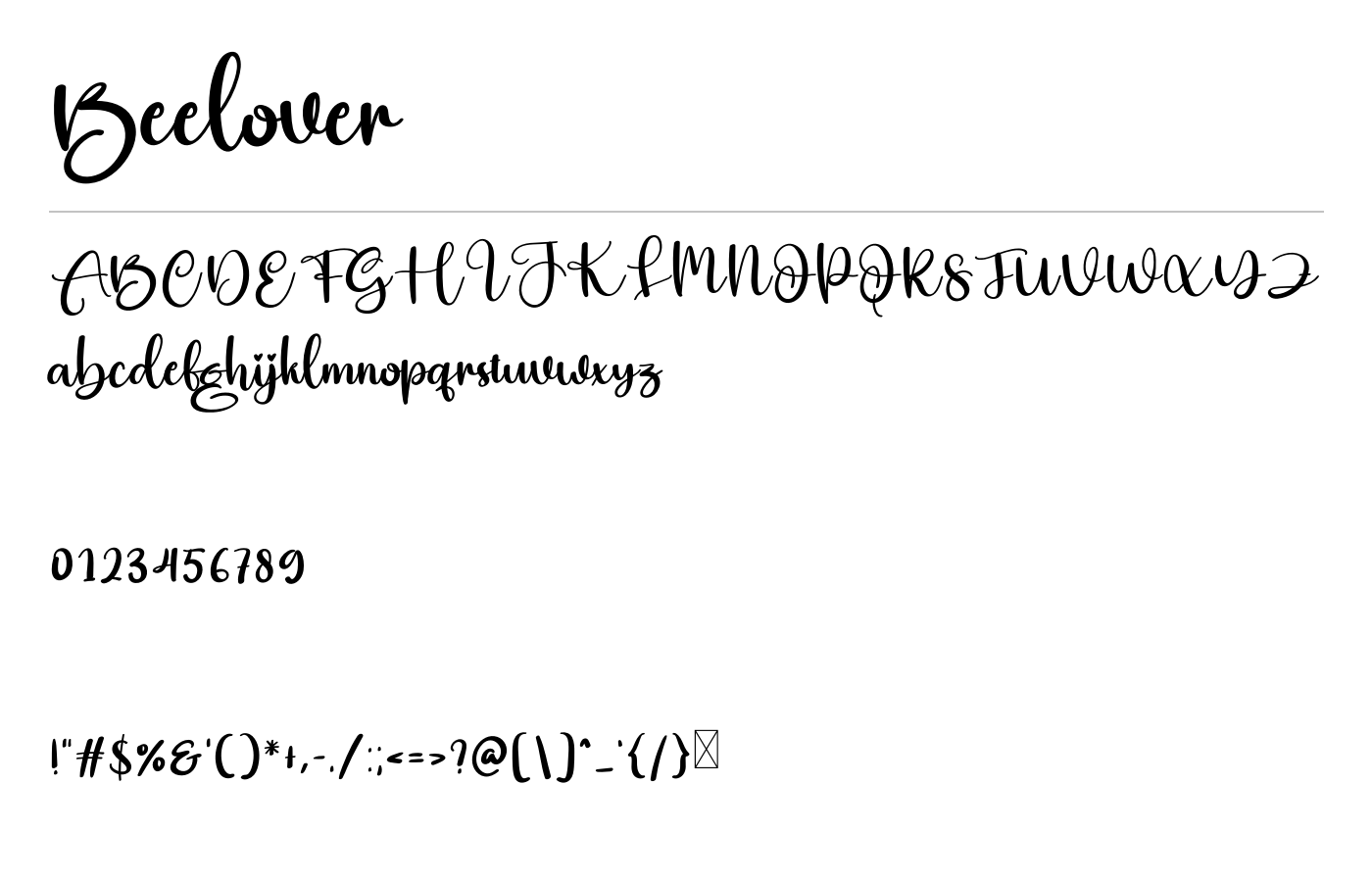
Beelover is a playful and elegant script font with a casual, hand-drawn feel. Its fluid strokes and whimsical letterforms make it perfect for adding a charming and personal touch to invitations, branding, and creative projects that seek a friendly and stylish vibe. This font works best in headlines, logos, and decorative uses where warmth and personality are key.
Beelover Font